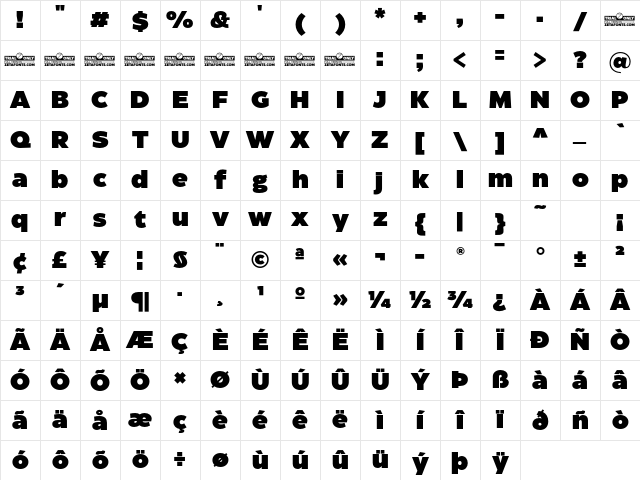
Eastman Roman Trial Heavy Free Font
Eastman Roman Trial Heavy
Foundry: Zetafonts
Designer: Francesco Canovaro
Design Context for Eastman Roman Trial
Eastman Roman Trial is a composed and adaptable typeface that performs quietly and consistently across a wide range of design contexts.
Who designed the Eastman Roman Trial Heavy font?